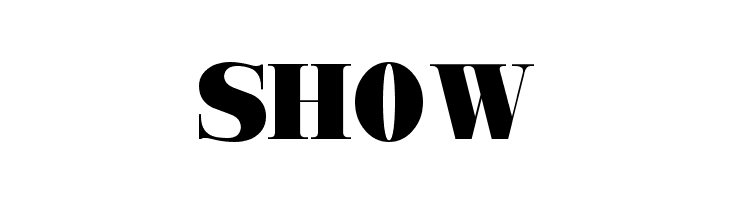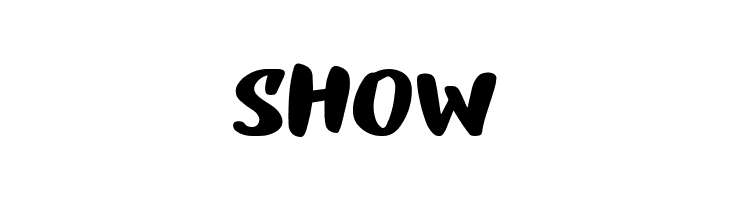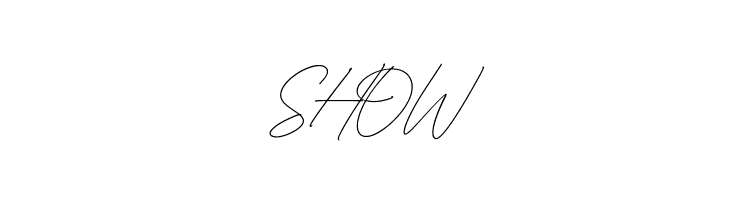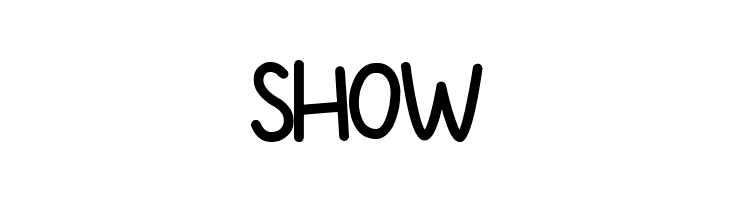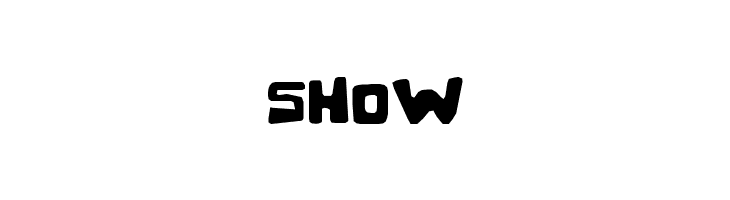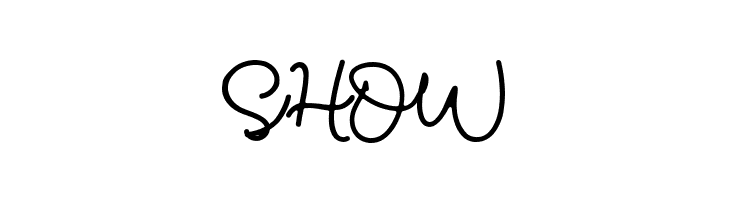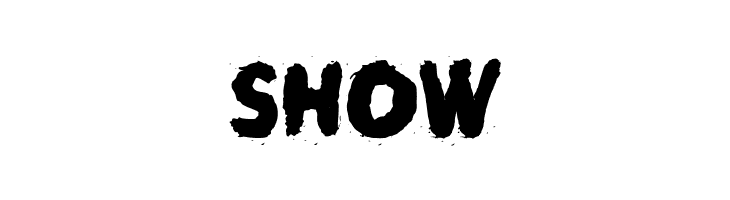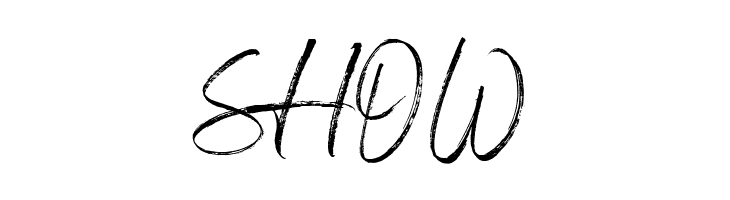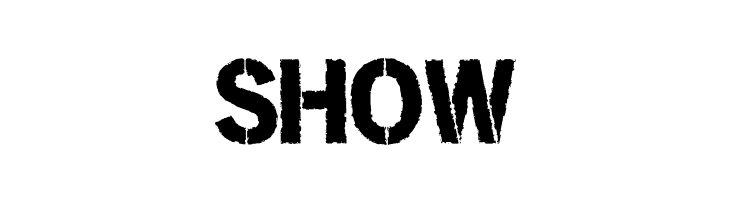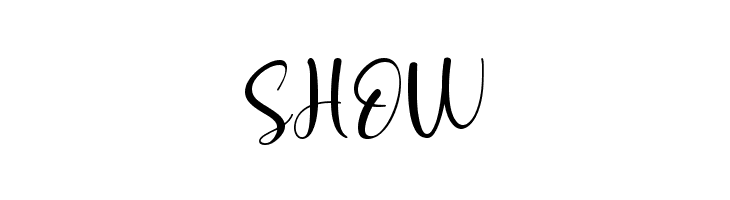
A bold, condensed serif font with italic styling for impactful and elegant designs.
A classic serif font with a condensed and italicized style, offering elegance and sophistication.
An elegant serif font with a pronounced italic slant, offering sophistication and fluidity.
A bold, cursive script font with elegant loops and a handwritten feel.
A bold icon set for gaming and tabletop themes.
A bold, high-contrast serif font with elegant curves and distinctive serifs.
A bold, expressive handwritten font with smooth curves and a playful style.
A playful and flowing script font with elegant curves and continuous strokes.
A bold, angular font with a futuristic and geometric design.
A whimsical and decorative font with swirling, curly embellishments.
A flowing, cursive script font with elegant curves and a handwritten style.
A dynamic and flowing script font with elegant cursive letterforms.
Whimsical, abstract figures form each character in a bold, decorative style.
A tall, narrow, and modern font with a sleek and consistent design.
An elegant, cursive font with a sophisticated, handwritten style.
A jagged, edgy font with irregular, sharp strokes resembling torn paper.
A bold, distressed font with a textured, urban style.
A playful and whimsical font with rounded edges and dynamic strokes.
Expressive ghost-themed dingbat font with various smiley faces.
A dynamic and elegant cursive script font with medium contrast.
A playful, cloud-themed font with a whimsical and airy design.
Casual handwritten script with artistic flair.
A modern, geometric font with clean lines and rounded edges.
A lively, cursive font with fluid strokes and a natural handwriting style.
A bold, playful font with a distressed, artistic style.
A bold, hand-painted style font with a distressed texture.
A bold, decorative font with a unique diagonal striped pattern.
A bold, elegant font with strong strokes and a commanding presence.
A graceful, handwritten script font with elegant, flowing strokes.
A bold, sketch-like font with a comic book style and textured appearance.
A playful, handwritten font with a whimsical and friendly style.
A lively, expressive handwritten font with dynamic strokes.